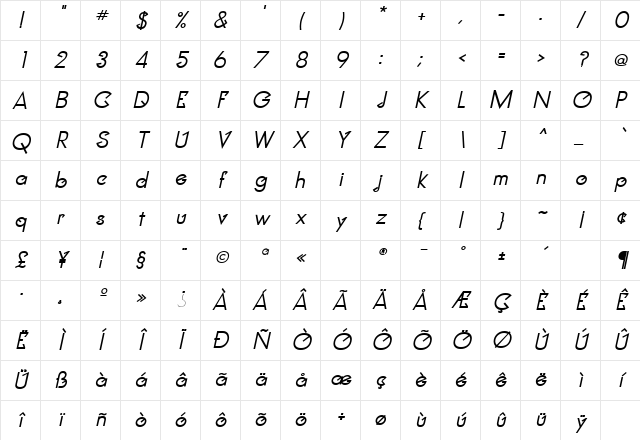
Clocker Bold Italic Free Font
Clocker Bold Italic
Foundry: Tipografia Leone
Designer: Tipografia Leone
Design Context for Clocker
Clocker is a composed and adaptable typeface that performs quietly and consistently across a wide range of design contexts. The slanted form adds forward momentum and visual energy. Its bold stroke weight gives it real presence on the page.